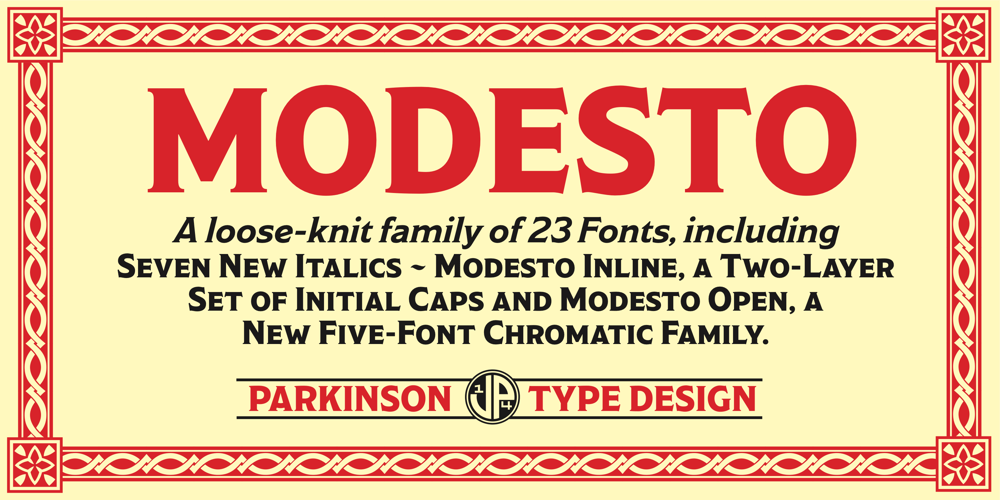
Modesto
Modesto font
Modesto Font Family was designed by Jim Parkinson and published by Parkinson. Modesto contains 10 styles and family package options. Modesto is a loose-knit family based on a signpainters lettering style popular in the late-19th and early-20th centuries. It evolved from the lettering I used for the Ringling Bros. and Barnum & Bailey Circus Logo. The Modesto family was not planned. It just happened, a few fonts at a time over about fifteen years. In 2014 four new Italic fonts were added. There is a downloadable MODESTO USER MANUAL PDF in the Gallery section for this family.